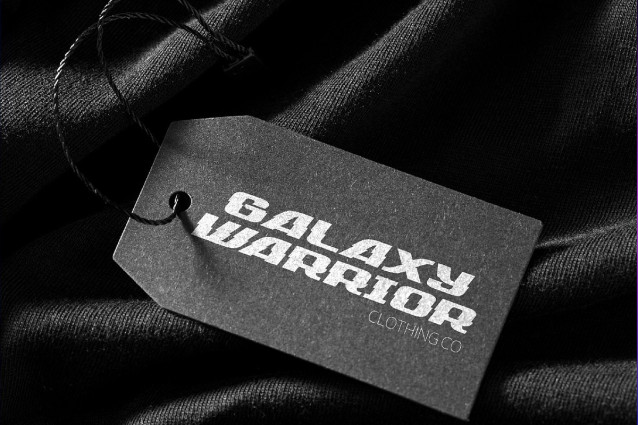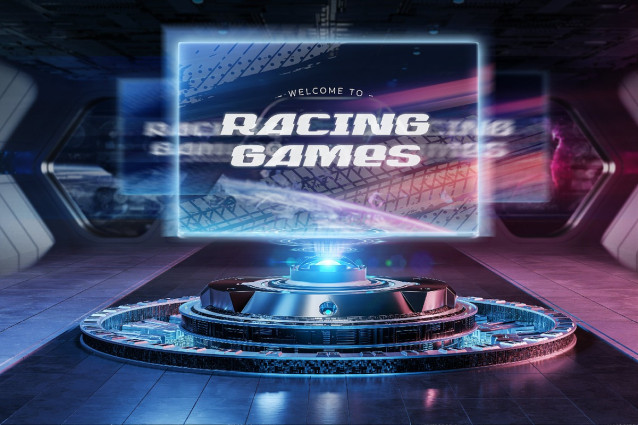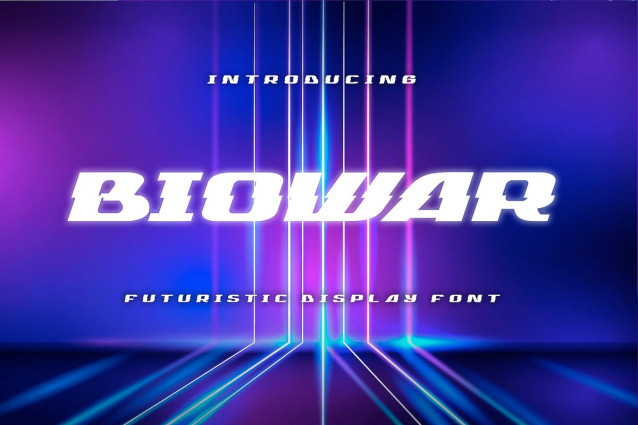
Biowar Font
Biowar Font is a futuristic display typeface built with bold structures, sharp silhouettes, and high-energy digital aesthetics. Designed with a modern, tech-driven attitude, this font blends neon sci-fi vibes with dynamic motion, creating a strong visual impact in every layout. Each letterform in Biowar features solid shapes, fast angular lines, and a cinematic presence perfect for designs that demand power, intensity, and a high-tech futuristic atmosphere. Biowar is ideal for creators who want typography that looks modern, electric, and visually commanding.
Great For • sci-fi posters, cyberpunk visuals & futuristic film titles • game interfaces, HUD graphics & digital UI elements • tech festivals, event titles & neon-style branding • modern high-tech identity design • motion graphics, title sequences & glow effects • creative projects with neon, virtual & digital themes